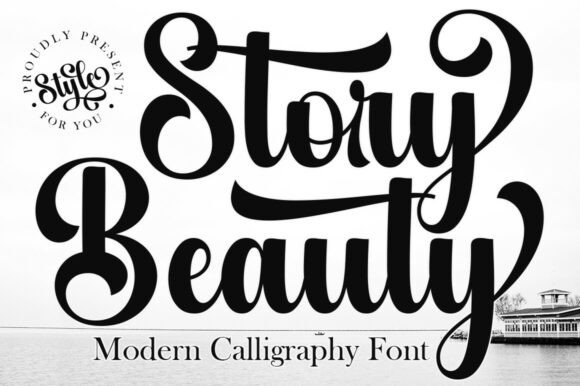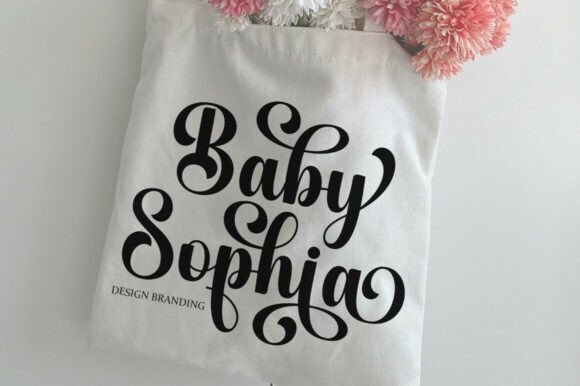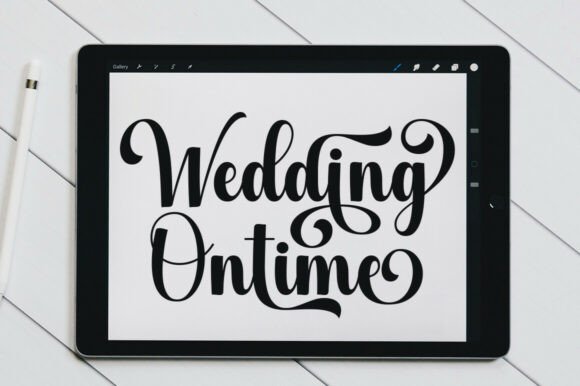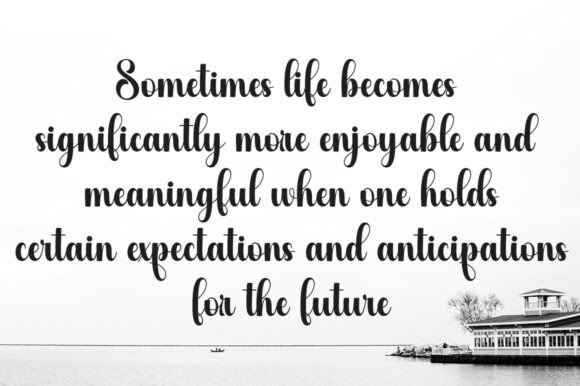
Story Beauty Font
Story Beauty is a font that exudes softness and elegance. With graceful strokes and a feminine touch, this font will elevate any design project to the highest level, be it branding, titles, wedding designs, invitations, signs, logos, labels, and more!